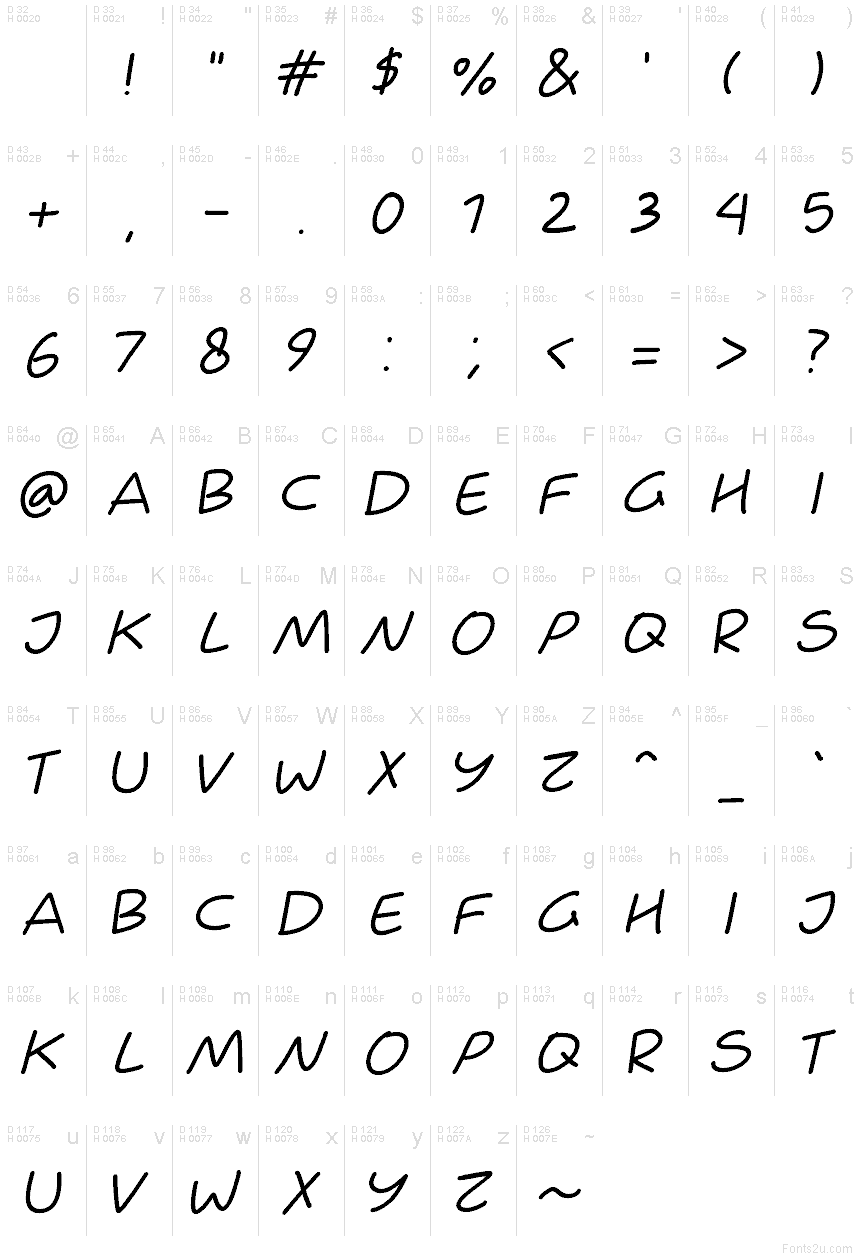
Sugar Aren
Sugar Aren font by Origin Type is a free handwritten typeface that captures the look of quick, confident marker strokes without sacrificing clarity. Each letter has an easy, slightly slanted flow, with smooth curves and just enough wobble to feel human, not messy. The overall rhythm is tight and consistent, so you get that casual, handwritten charm that still reads cleanly on screens and in small sizes.
Using Sugar Aren, you can pull off friendly logos, social media graphics, quote posts, packaging, greeting cards, and informal invites that feel personal and energetic. This free font shines when you want a relaxed voice that still looks thought-through—not childish, not stiff. Try pairing Sugar Aren for headings with a simple sans serif at smaller sizes to keep your layouts fresh, readable, and nicely balanced.